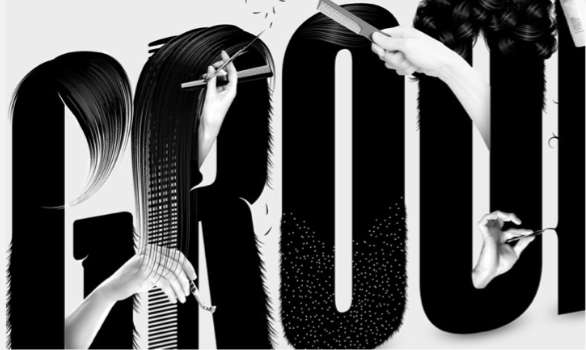
You can say just about anything when you string the right letters together, but the characters that compose this Grooming typeface are able to communicate even more than the alphabetic symbols spell out.
Luke Lucas has conceived some pretty extraordinary typography for private commissions, and this is another one well worth checking out. Created specially for the start of a section in Esquire Magazine, this collection of coiffed characters visually describes cosmetic maintenance in the way that the ensuing article approached more literally.
Each letter within the sequence flaunts its own furry qualities, be they concerned with facial hair, body hair or the stuff you find on your head. An otherwise simplistic Sans Serif font is enhanced with combs, brushes, curling irons, razors and hairspray, which gives this Grooming typeface the look of scrupulous sprucing up.
Cut and Combed Characters
A Grooming Typeface Styles and Sprays the Standard Sans Serif